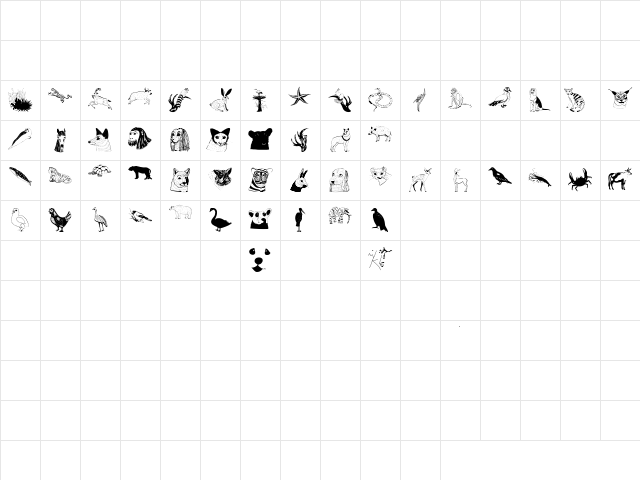
AbermalsAnimals Regular Free Font
AbermalsAnimals Regular
Design Context for AbermalsAnimals
AbermalsAnimals is a composed and adaptable typeface that performs quietly and consistently across a wide range of design contexts.